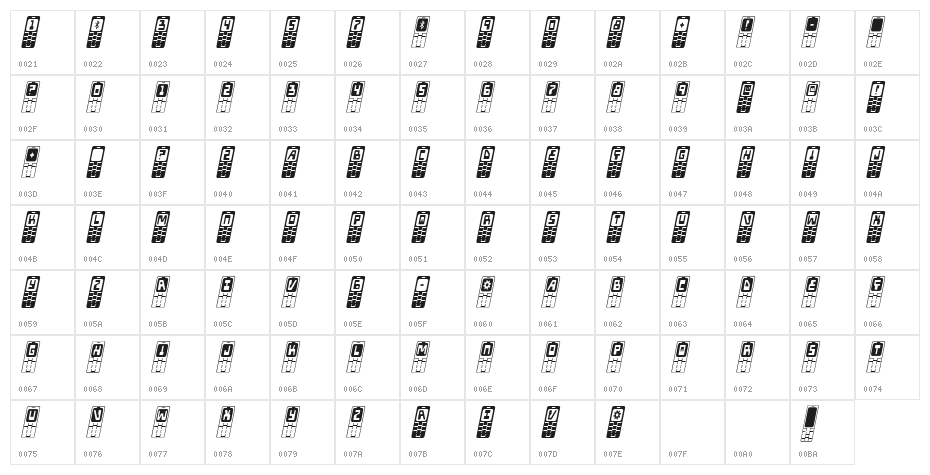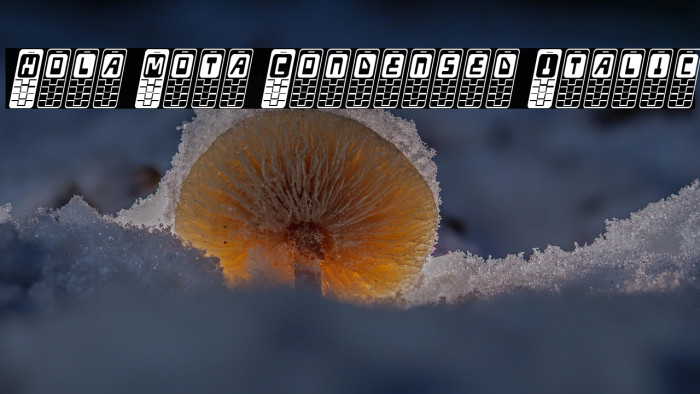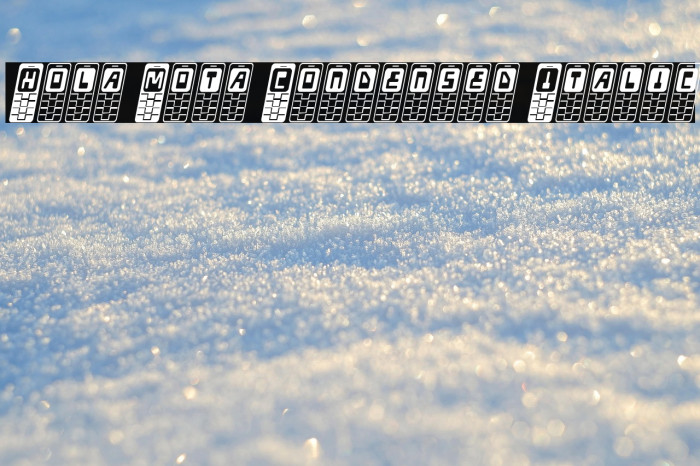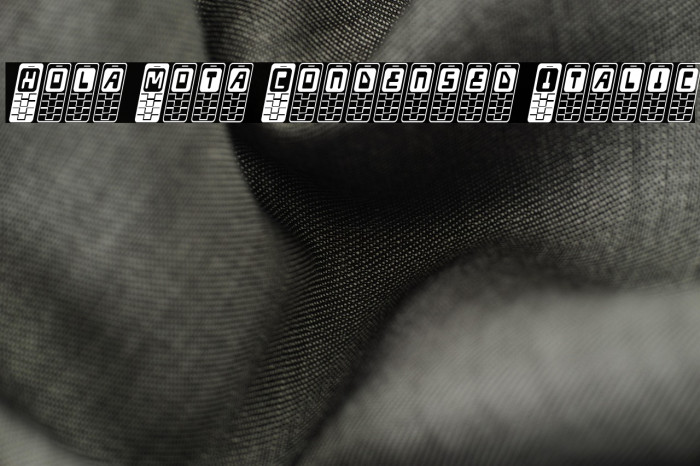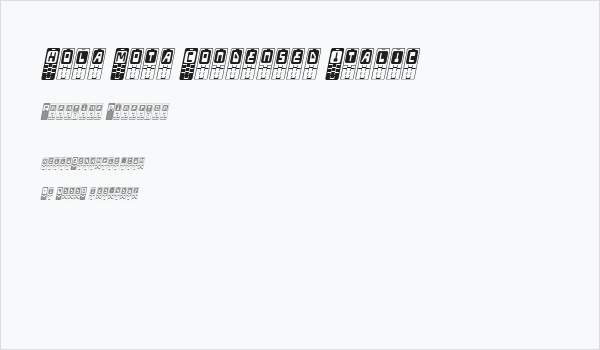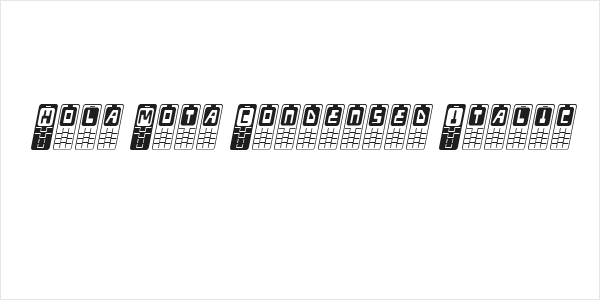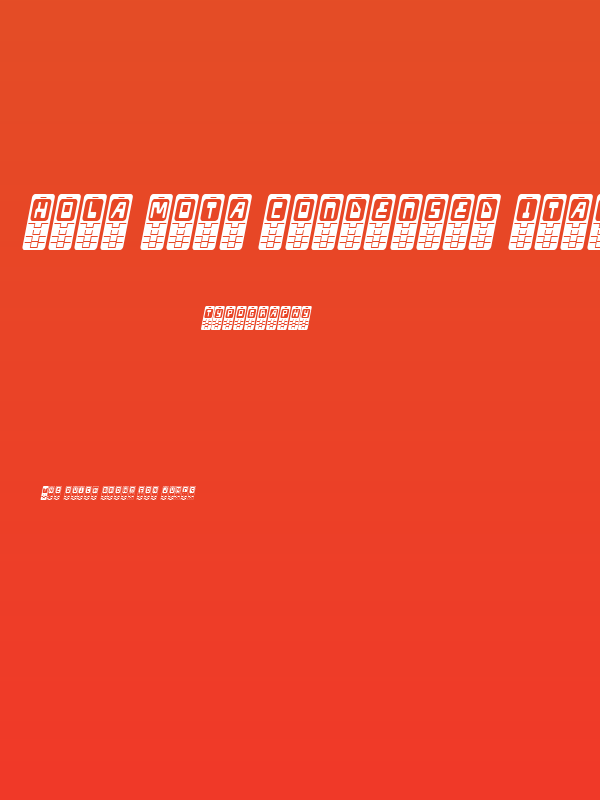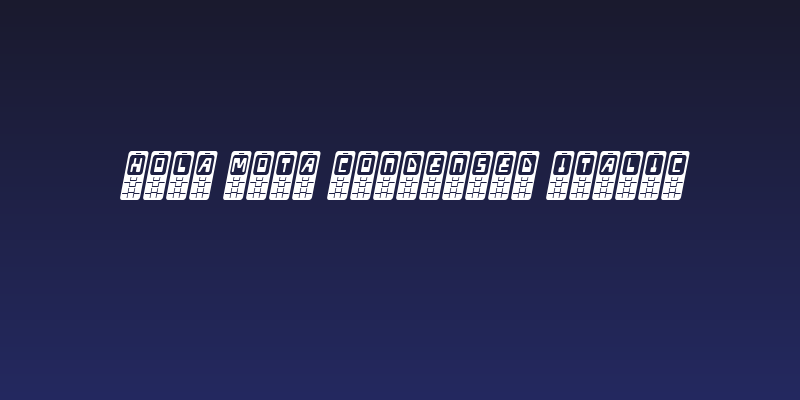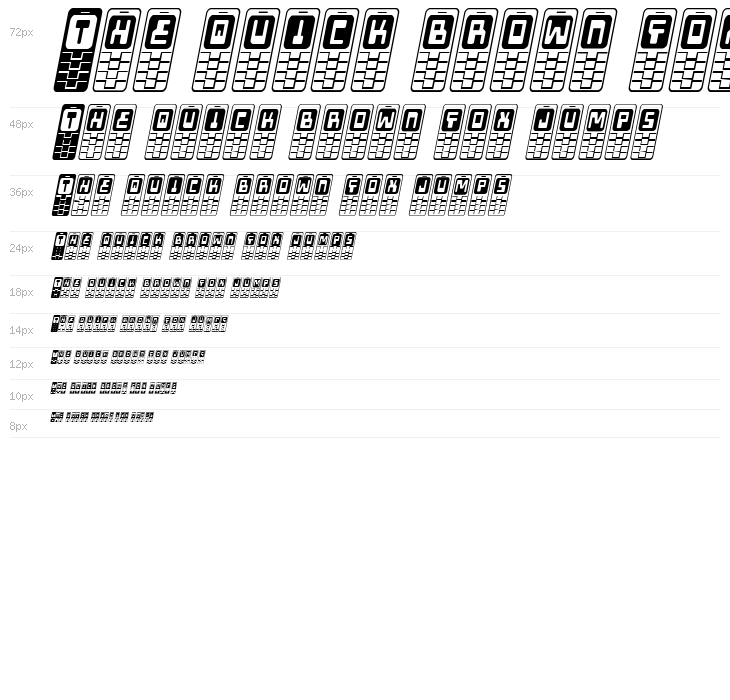
Hola Mota Condensed Italic Font
Hola Mota Condensed Italic Description
This font features a bold, condensed style with a distinct italic slant, giving it a dynamic and modern appearance. The characters are enclosed within a rectangular shape, adding a unique, tech-inspired aesthetic. The uppercase and lowercase letters maintain a consistent design, with sharp angles and clean lines. The numerals and special characters follow the same stylistic approach, ensuring uniformity across the typeface. This font's geometric and futuristic look makes it stand out, ideal for projects that require a strong visual impact.